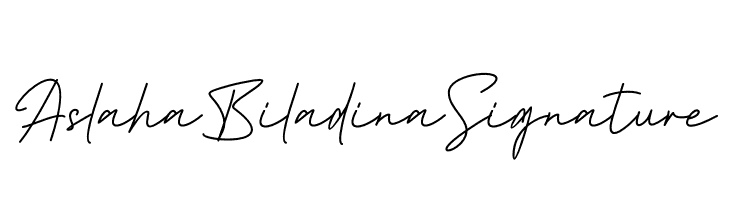
A graceful, cursive script font with flowing, connected characters.
A bold, dynamic script typeface with a modern, flowing style.
A stylish, handwritten script font with elegant, flowing lines.
A stylish, slanted cursive font with a modern handwritten feel.
A stylish and elegant script font with flowing, interconnected letterforms.
A stylish, slanted script font with a handwritten, elegant flow.
A dynamic, cursive script font with fluid, interconnected strokes.
An elegant, flowing script font with a natural handwriting style.
A bold, cursive font with a playful and energetic style.